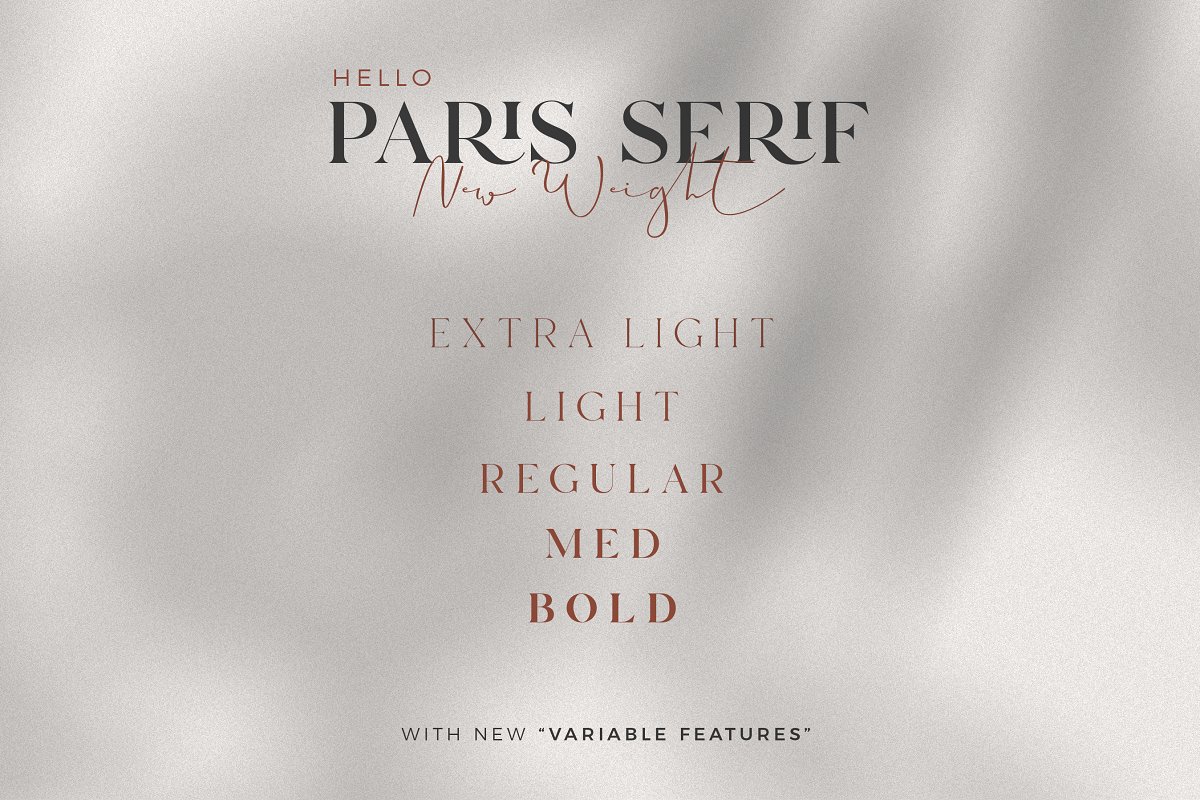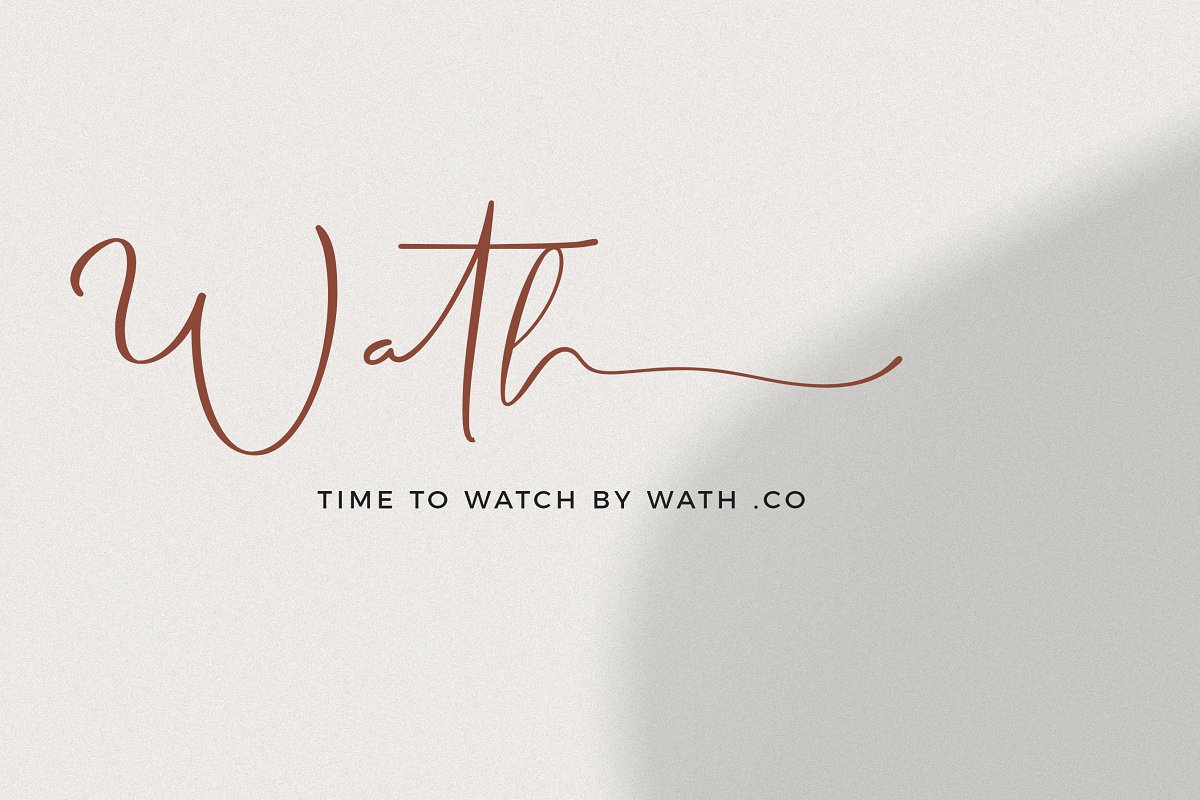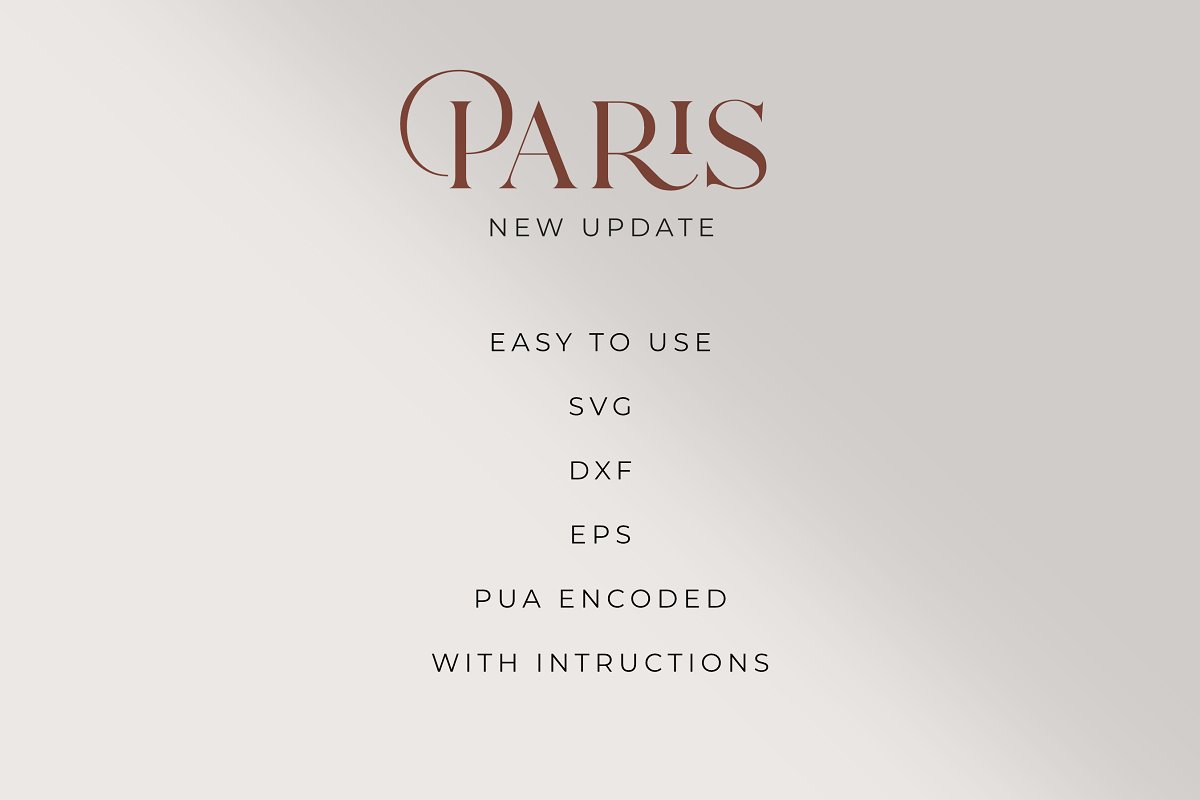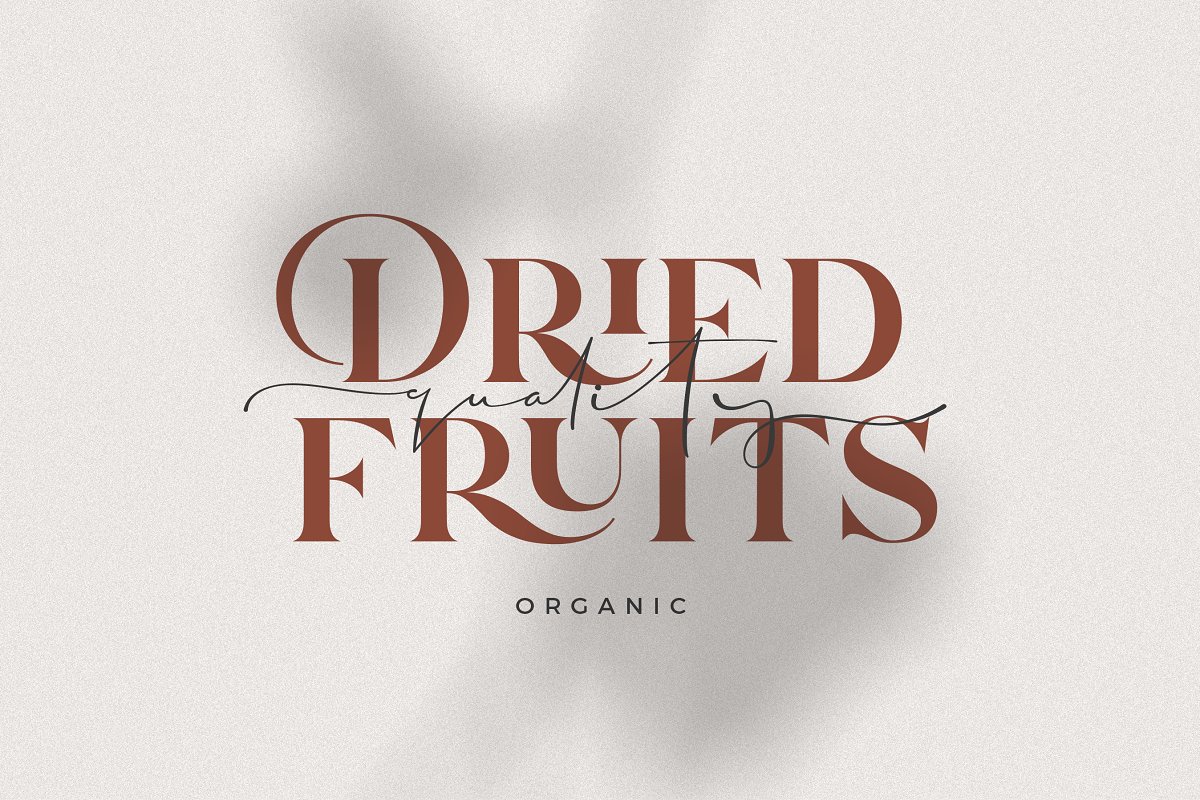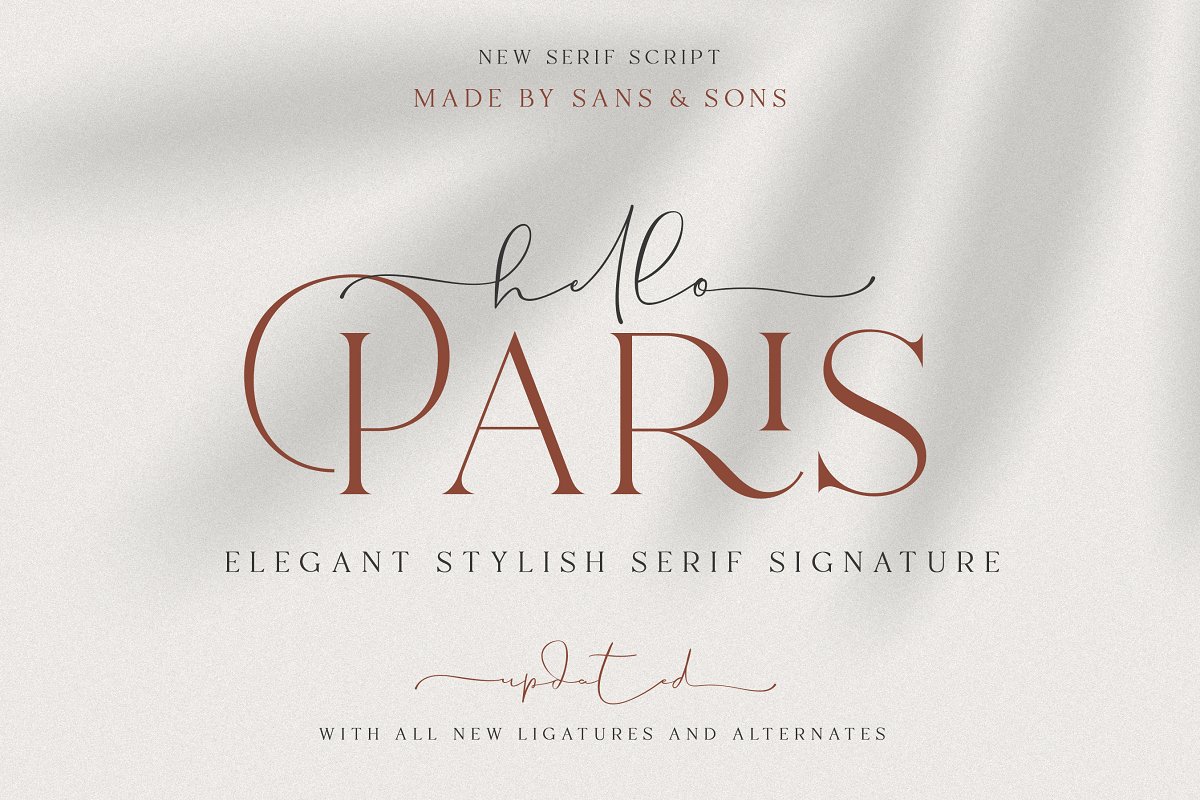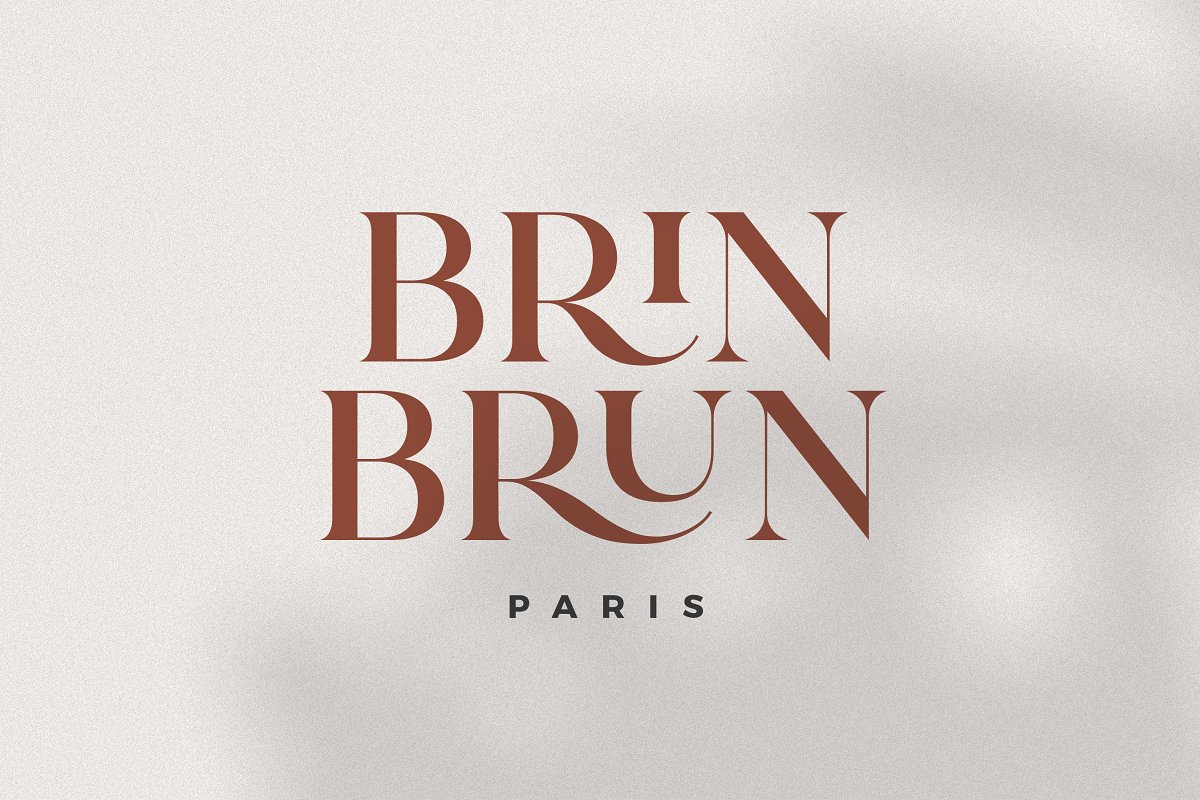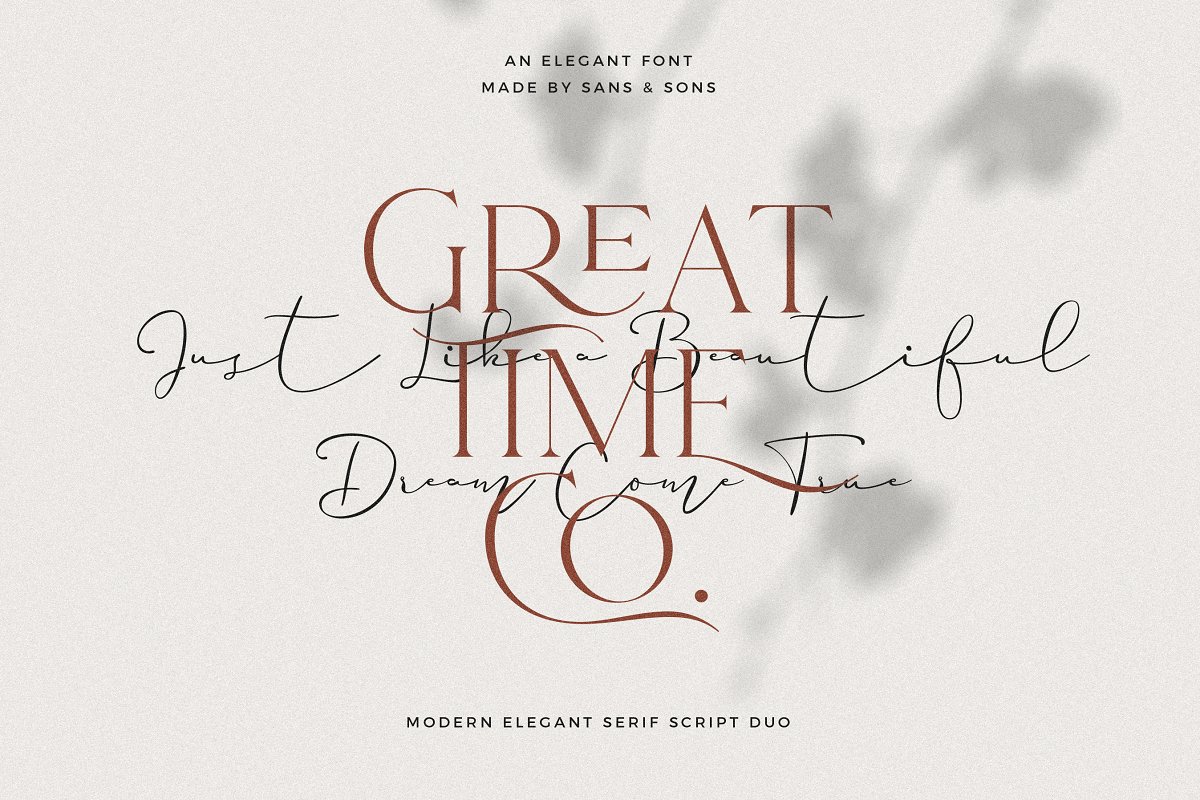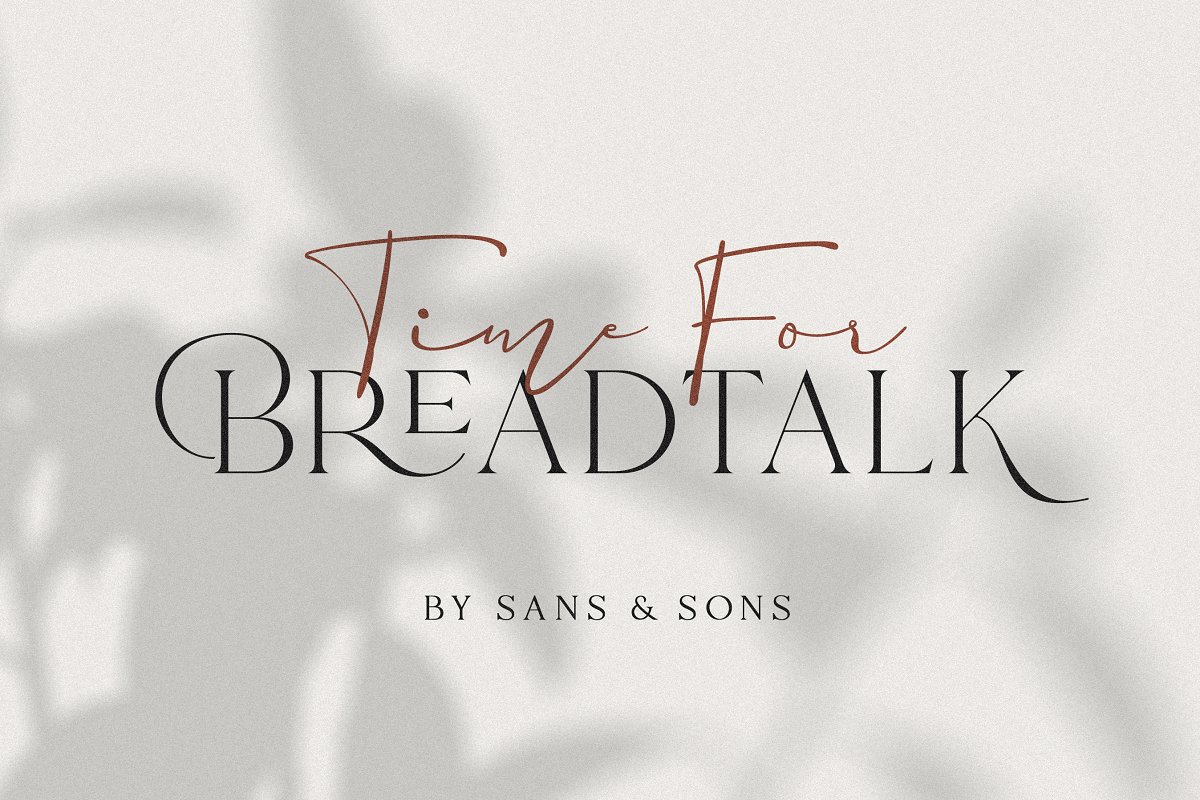
About the Hello Paris Variable Duo Font
NEW RELEASE !! Hello Paris Sans available to purchase : https://crmrkt, com/RP1bvvHello Paris – Modern Variable Paired Duo say hello for our first debut Hello Paris with Modern Elegant Style this is perfect for branding, logos, invitation, masterheads and more, Hello Paris Features : NEW Variable Feature ( please see our video tutorial about how to use it )Alphabet Cutfile SVG/DXF/EPS files for Cricut and Silhouette Multilanguange (